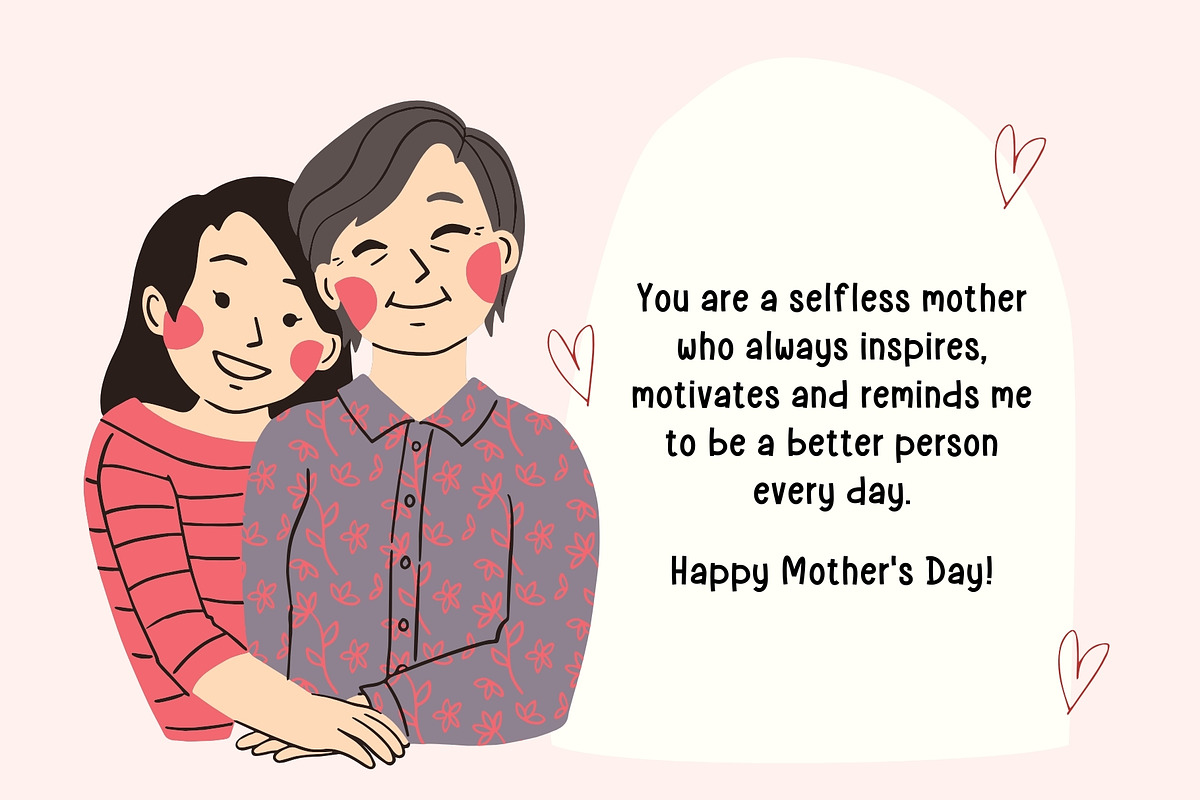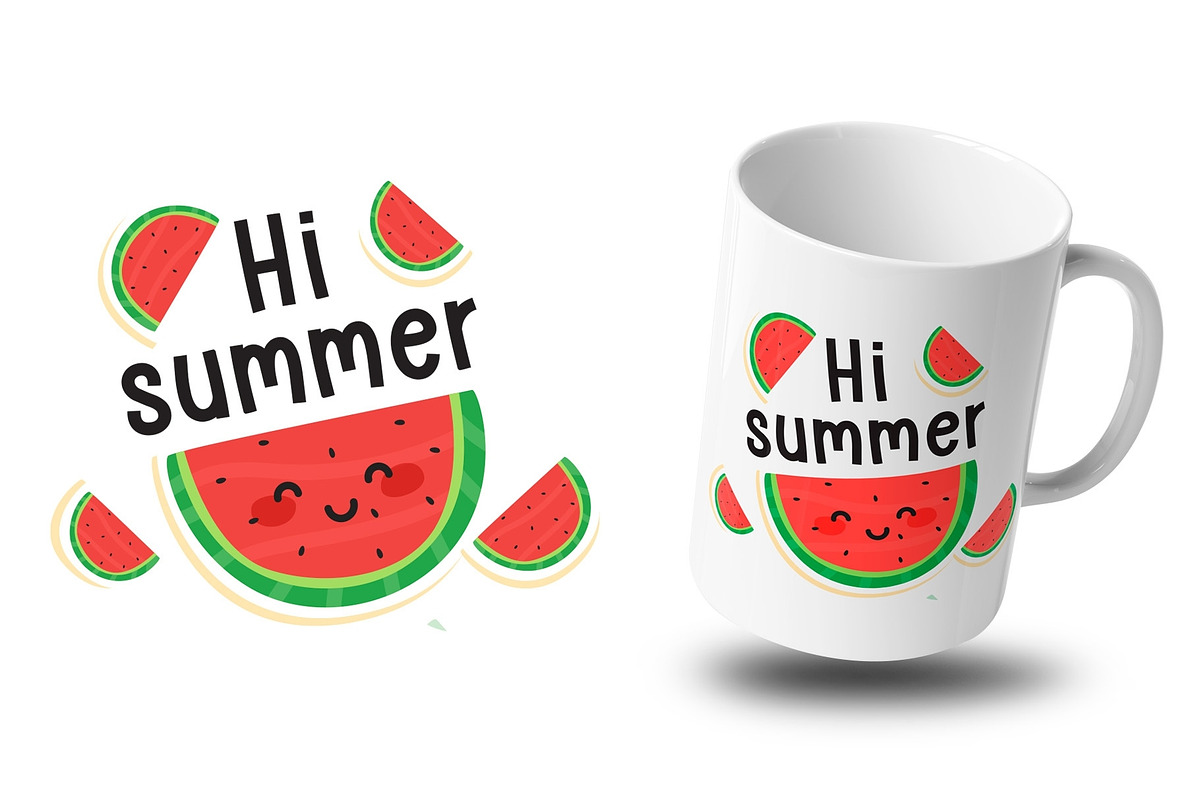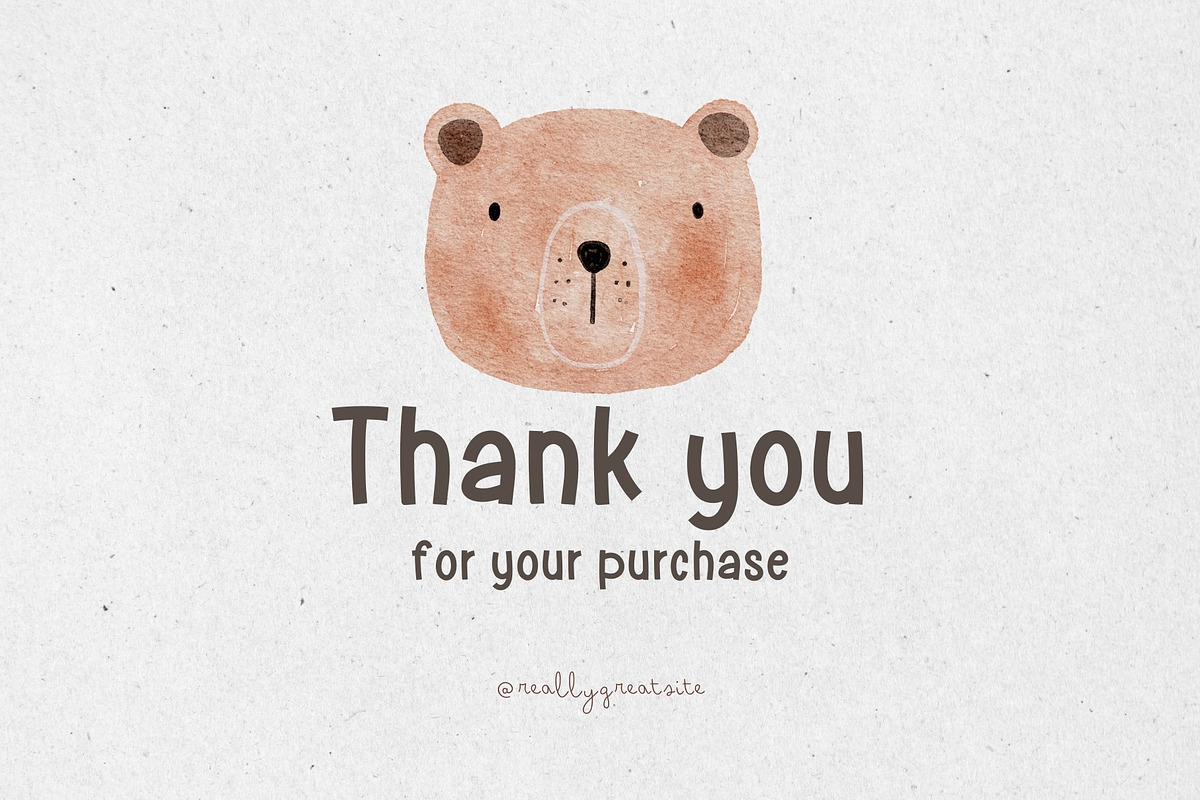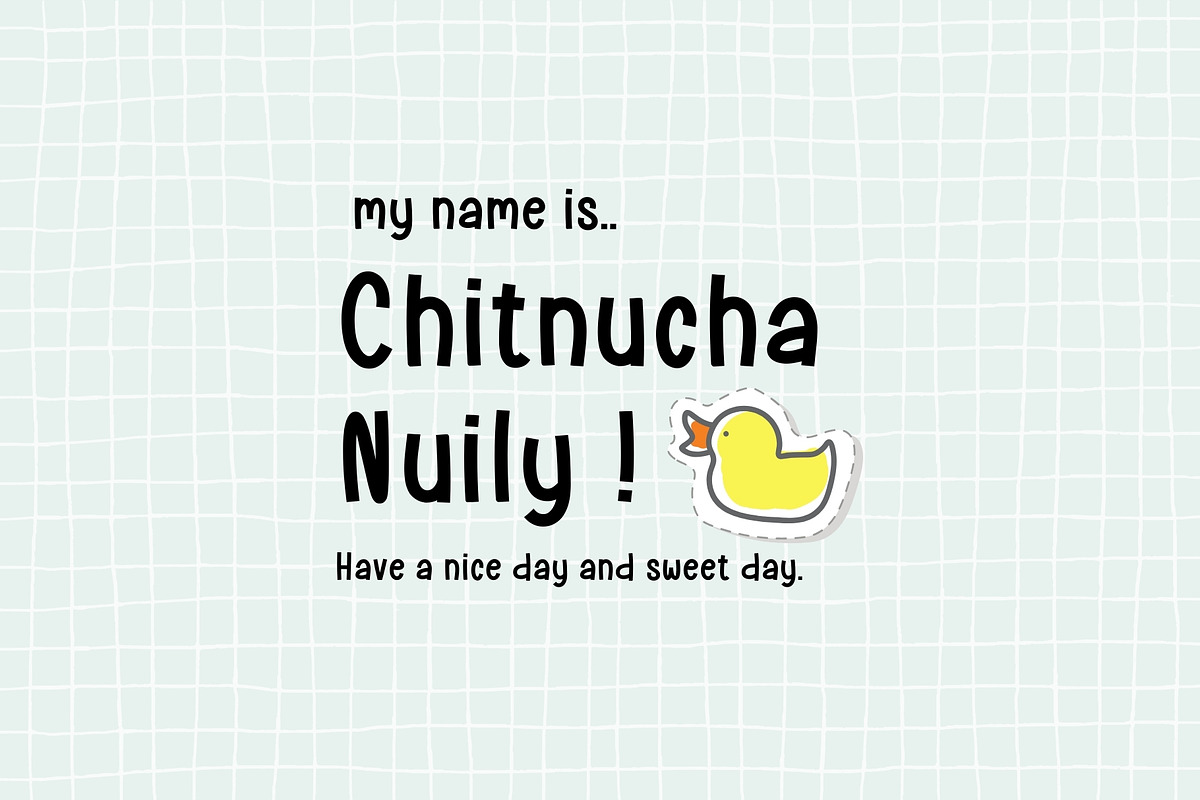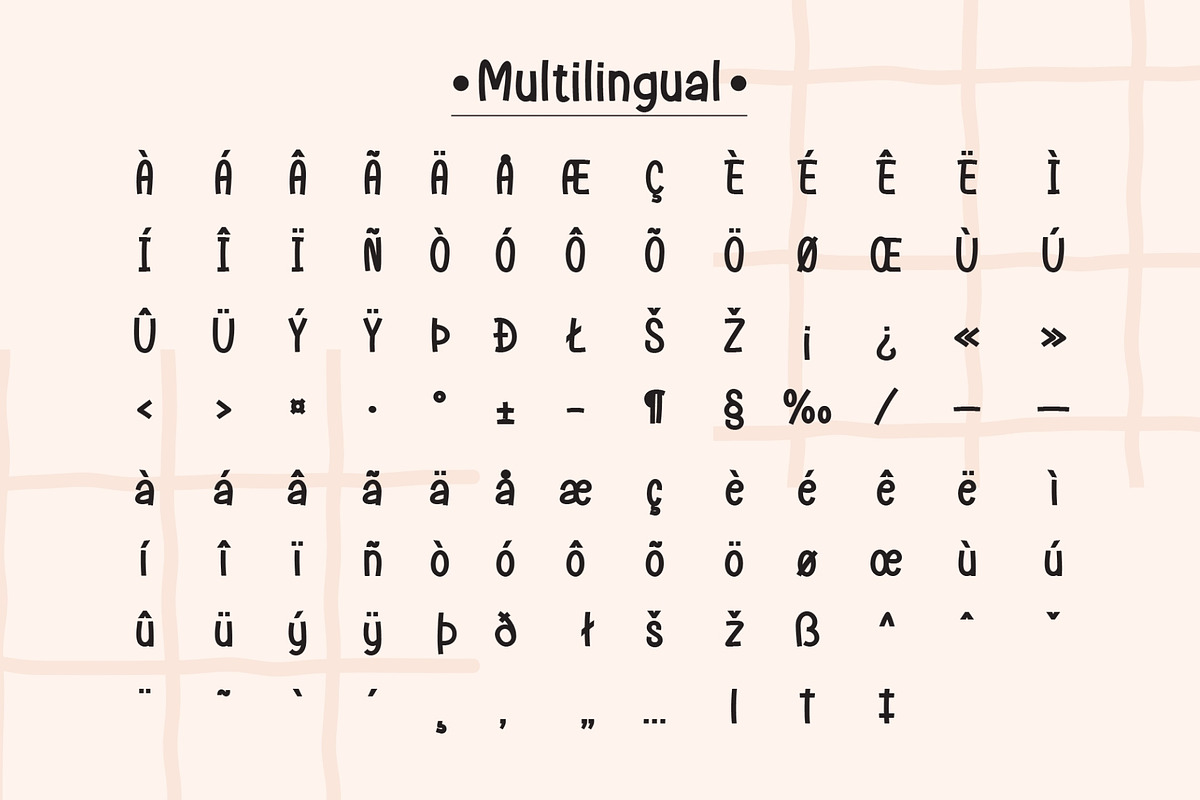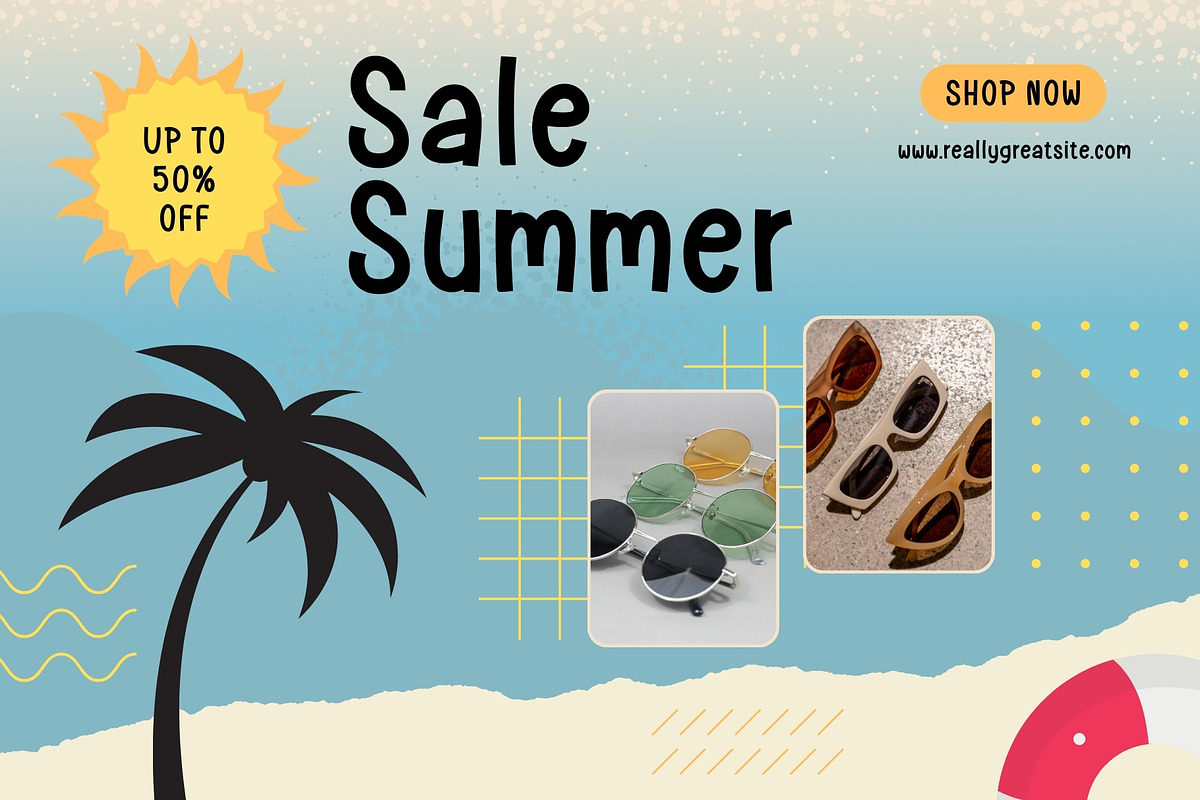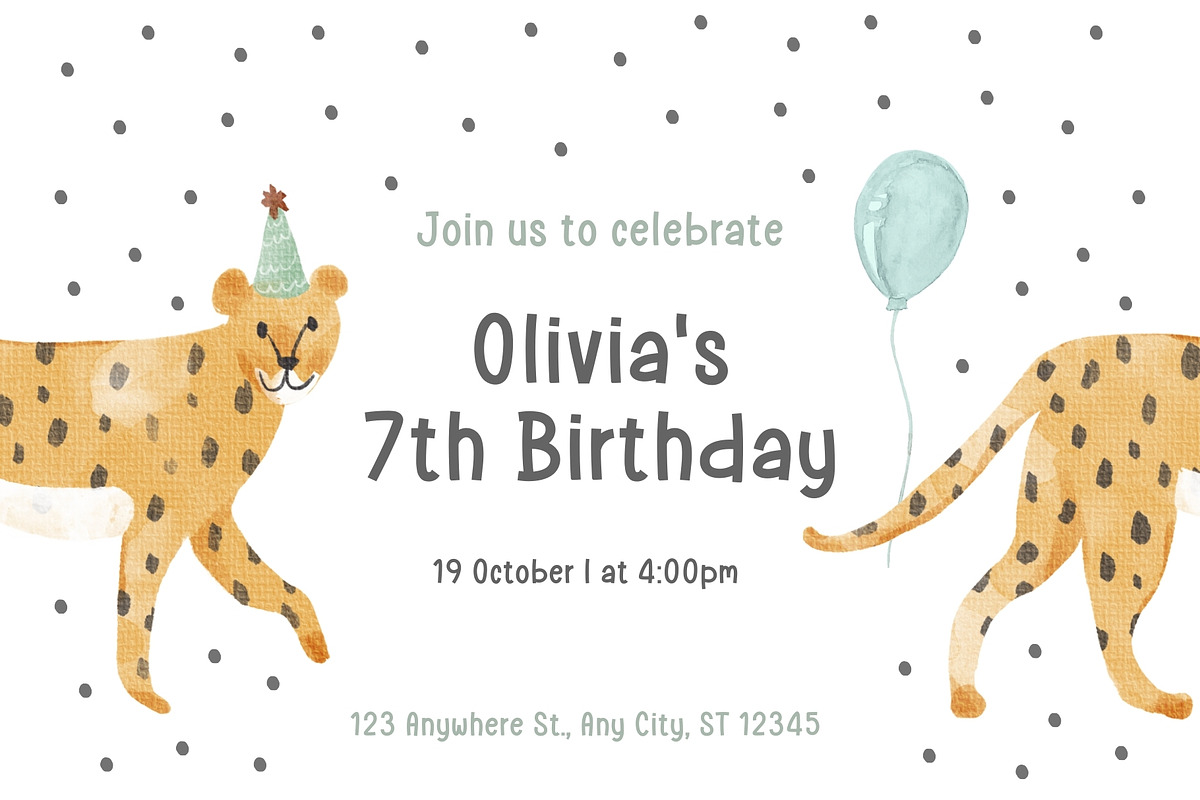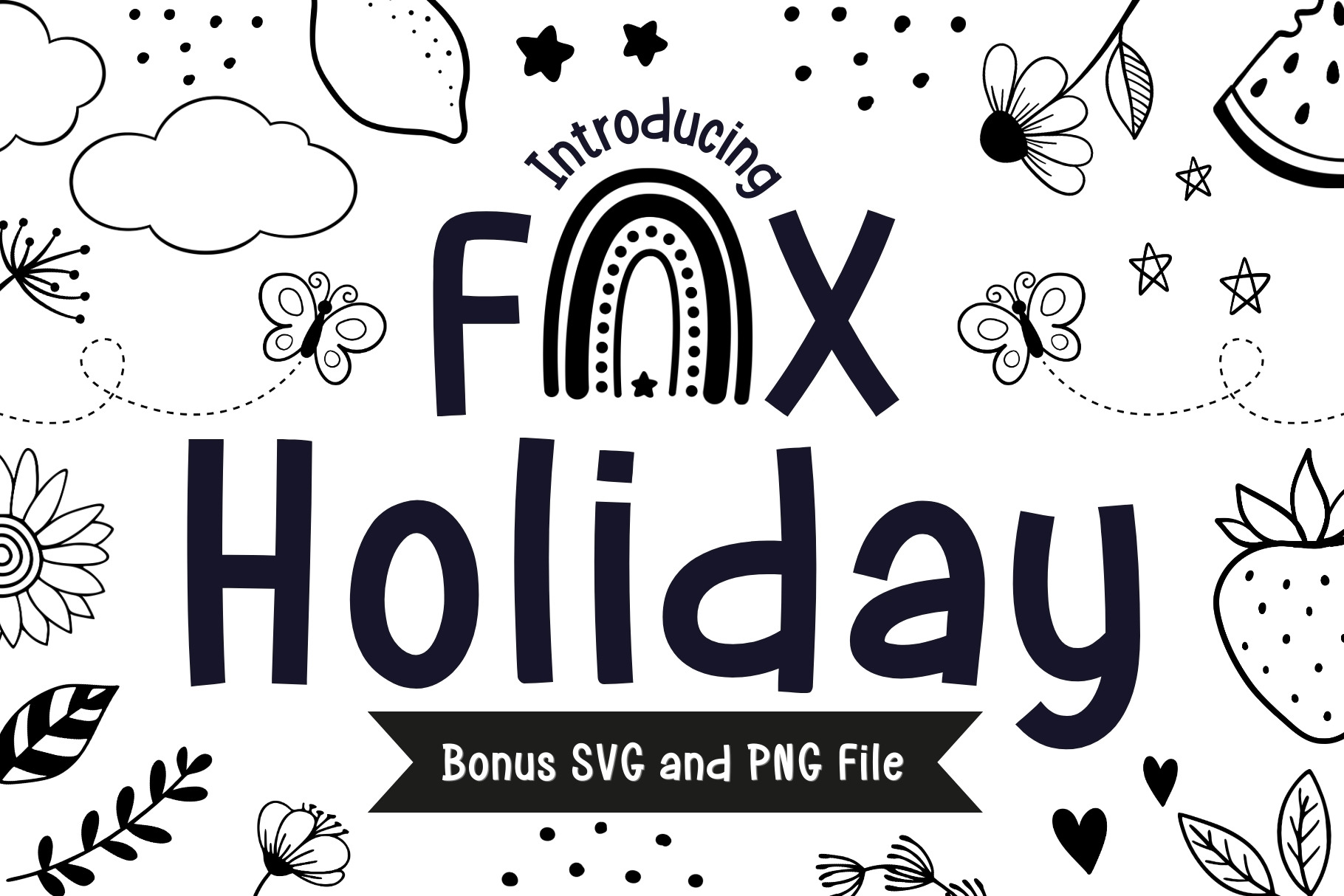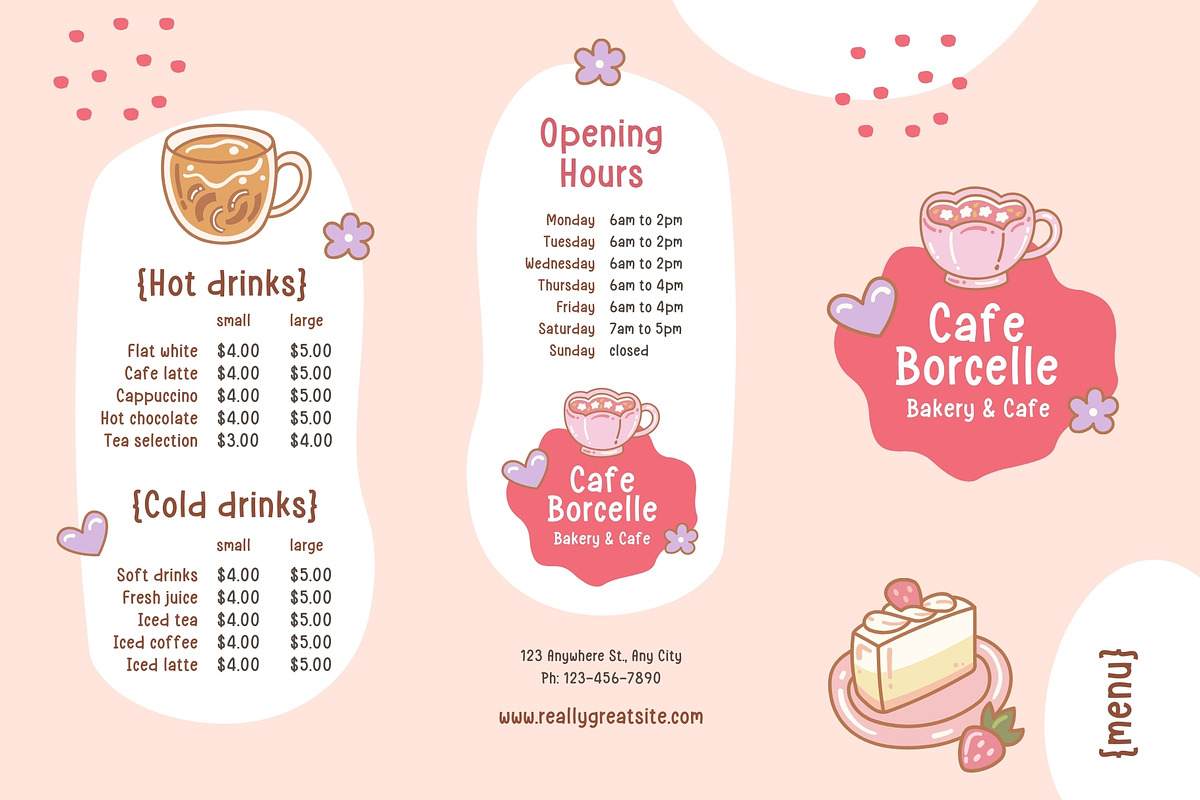
Fox Holiday Font
Fox Holiday is a cute and Easy to read playful handwritten font. creates a friendly atmosphere, becoming an ideal choice for numerous design concepts. From children’s themed projects to expressive blog posts, it exudes a unique charisma. Its versatility doesn’t stop there, as it also shines in branding efforts, imprinting logos with personality and breathing life into advertisements. Fox Holiday can even add a touch of fun to invitations, greeting cards, and planners. Its creative potential is limitless, transforming photo albums and decorations into something truly special.